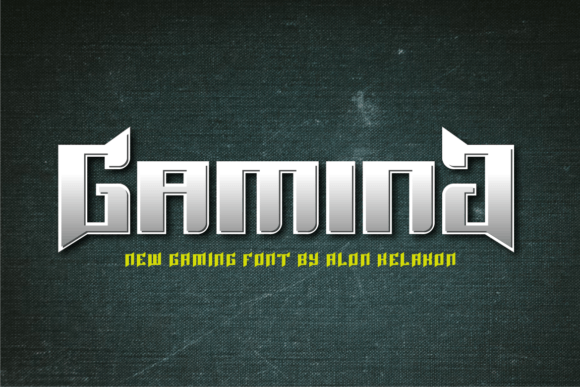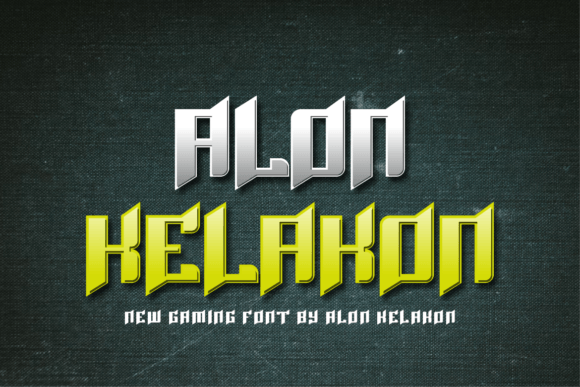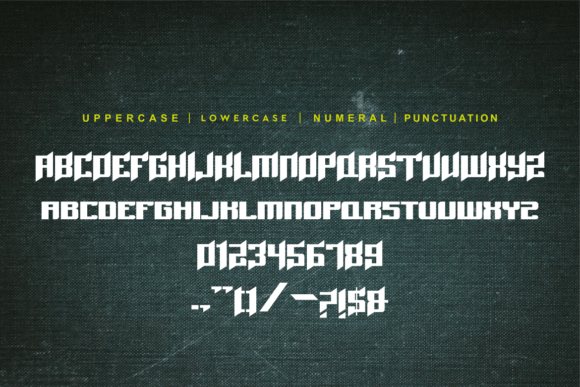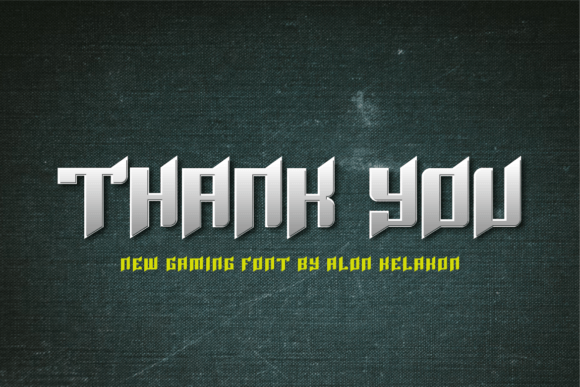
Introduction to Rusher Gaming Font
Rusher Gaming is a cool and modern display font.
Key Features of Rusher Gaming Font
Why Choose Rusher Gaming Font?
Rusher Gaming Font offers exceptional quality and versatility, making it a valuable addition to your design toolkit. Whether you’re creating for personal projects or commercial use, Rusher Gaming Font delivers professional results.